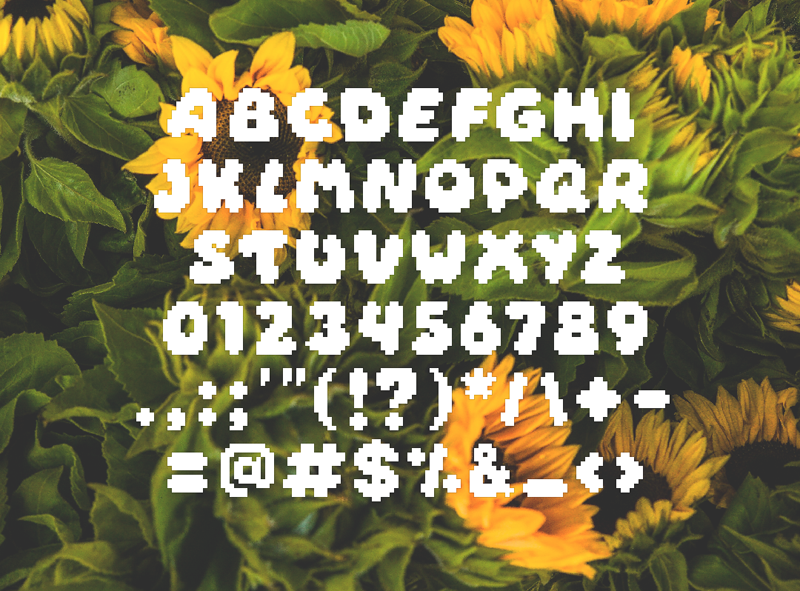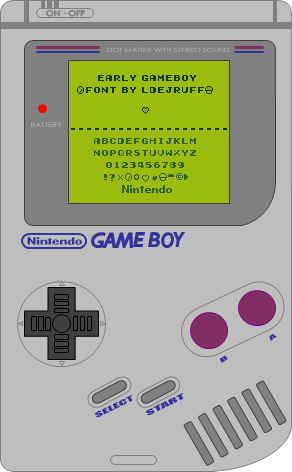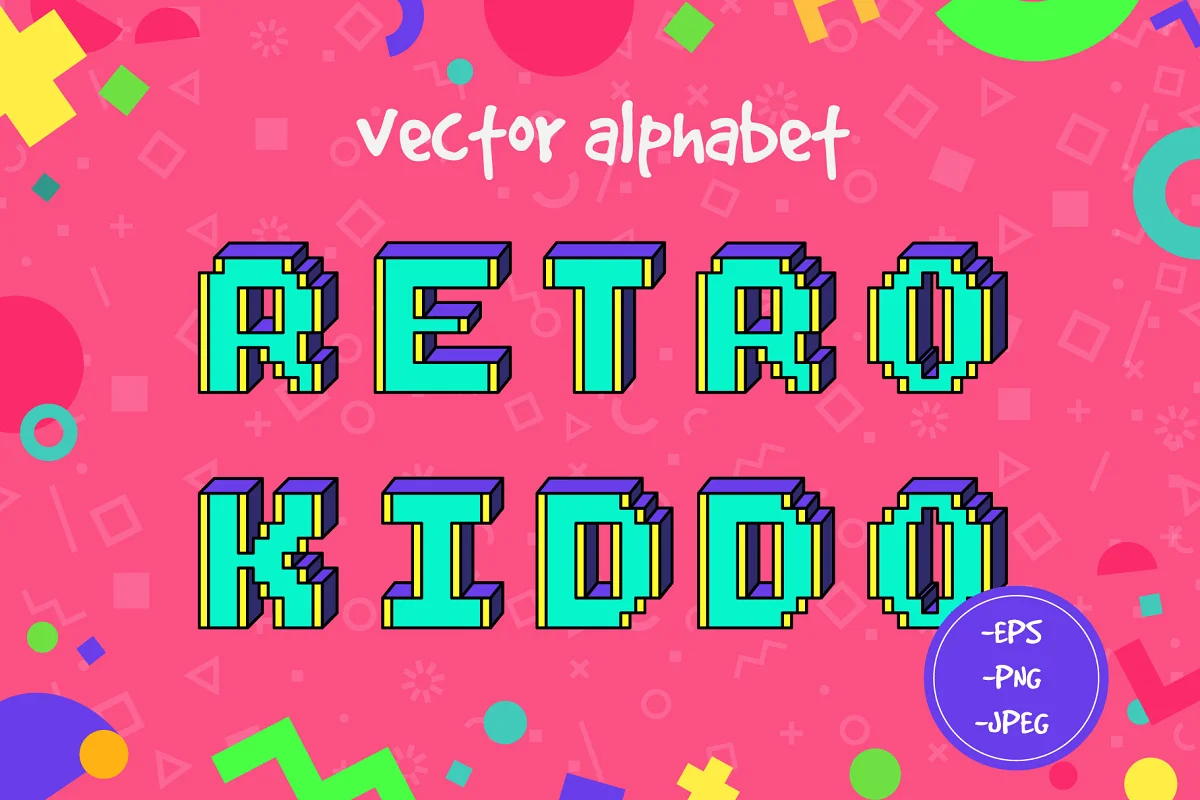
One of the best ways to incorporate good vibes and nostalgia into a design is using an 8-bit font. They evoke whimsy and fun that sans and serif will never be able to compete with. Despite 8-bit’s apparent rigidity, they’re wonderfully versatile and distinct. These are some of the best 8-bit fonts on the market with varying price ranges. Challenge yourself to incorporate them into your designs and advertisements — even if it isn’t for a video game or arcade.
1. Daydream
The font looks like what it claims — it doesn’t have the stark angles of traditional video games but rounded edges that look like a video game daydream. The softer edges combined with the identifiable square edges resemble Nintendo clouds. It’s an ideal option if you’re looking for something more lighthearted, whether for a book jacket or banner ad.
2. Early GameBoy
Nintendo fans would recognize these pixels immediately. As the name suggests, the font replicates the style of the original GameBoy from Nintendo. Even if you never played one yourself, the quintessential thin and thick weighted letters are easy to read yet playful. It includes an entire number set with limited special characters, but it’s enough for more minimal designs.
3. Pixtile
This font marries a few classic hobbies — video gaming and sewing. The shapes resemble old cross-stitching and textile patterns, which gives it its punny name. It is more malleable to a wide range of design intents because it isn’t inherently associated with video games and merely consists of pixelated squares.
4. 8-Bit Arcade
The name of this one hints more about its on-the-nose inspiration. You could see this appear on 80’s video game cabinets in retro films or at your nearest barcade. The 8-bit arcade-style is a dream for aspiring video game designers trying to keep the classic style alive and well. It maintains a strictly uppercase lineup with bold, wide shapes that work well for outlining or jazzing up with color.
5. Retro Kiddo
Imagine you blended 80’s video games with a 90’s aesthetic — in that beautiful stylistic medium, you get Retro Kiddo. The kit comes with multiple color variants in eye-catching color palettes. One is seafoam letters with yellow and purple outline detailing, and the other is yellow letters with more blurred pink and purple outlines. Designers have all the vectors they need to craft a perfect t-shirt or social media banner.
6. Birch Leaf
Imagine you put in a floppy disk or CD-ROM, depending on your age. You open a fantasy game that starts in a tavern, and it regales you about your adventure. This is the font that represents that energy. The designer of Birch Leaf wanted to exude that vintage charm with its 8-bit style and curly accents. This font contains upper and lowercase letters. The flourish is mainly in the capitals, allowing more outstanding readability.
7. Wayfarer’s Toy Box
Wayfarer’s Toy Box has enough intrigue to separate it from other 8-bit fonts. Its interesting angles and unintuitive directions make it unique while still being approachable. The modern style makes it feel old and new at the same time, a perfect bridge for designers who want the aesthetic without going too classic.
8. Vermin Vibes 1989
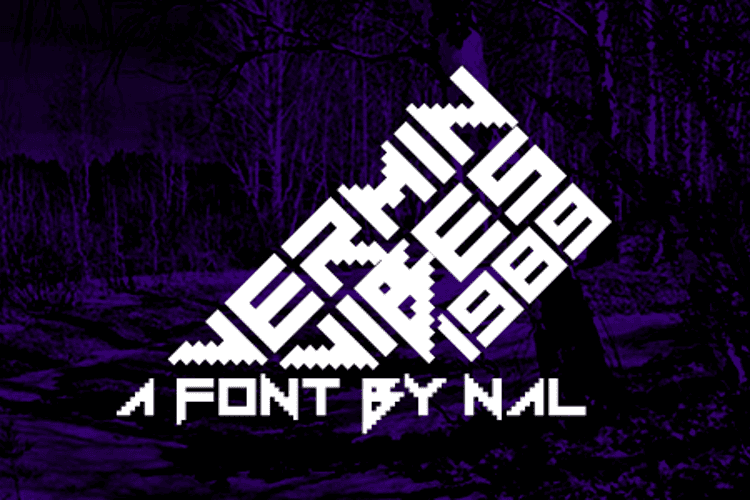
Vermin Vibes 1989 has an edginess other 8-bit fonts just don’t have. The sleek angles give designers more options on how to angle it. You could make the font look good horizontally or turn it against triangle vectors for an even cooler appearance. The sharpness of the letters makes almost any orientation feel intentional. The white space in the E’s and R’s make it easier on the eyes, especially with the font’s thickness.
9. Johto
Named after the original location of Pokémon, the Johto font resembles the old games while being simplistic enough not to put itself into a box. Avid gamers will recognize the indiscriminate pixels by their width and shape, but for regular observers, it is a simplistic 8-bit font that’s easy to manipulate. The font family has several variants, including Mono and Sans Regular, if you’re curious how it looks with different spacing and height.
10. 04b_30
Meet the brainchild of bubble letters and 8-bit. It has similar roundness to Daydream, but 04b_30 is straighter and has details that make it appear like the bubble shapes have a reflection for more personality. The font shows off its quirky numbers and how they differ in size from the letters. Its peculiar proportions add pizzazz to any design, immediately making it memorable to any viewer.
11. Pixel 2
Pixel 2 is a highly customizable font, which lends itself to be slightly more restrictive. It is a scalable vector graphics (SVG) font.
Get Retro With a Nostalgic 8-Bit Font
8-bit fonts are not exclusive to video games but give that comforting atmosphere. It also encompasses more than squares and sharp edges, though these are trademarks. Modern reimaginings give this style new life for designers inside and outside the gaming industry for never-before-seen interpretations of the classic style. How creative can you be?